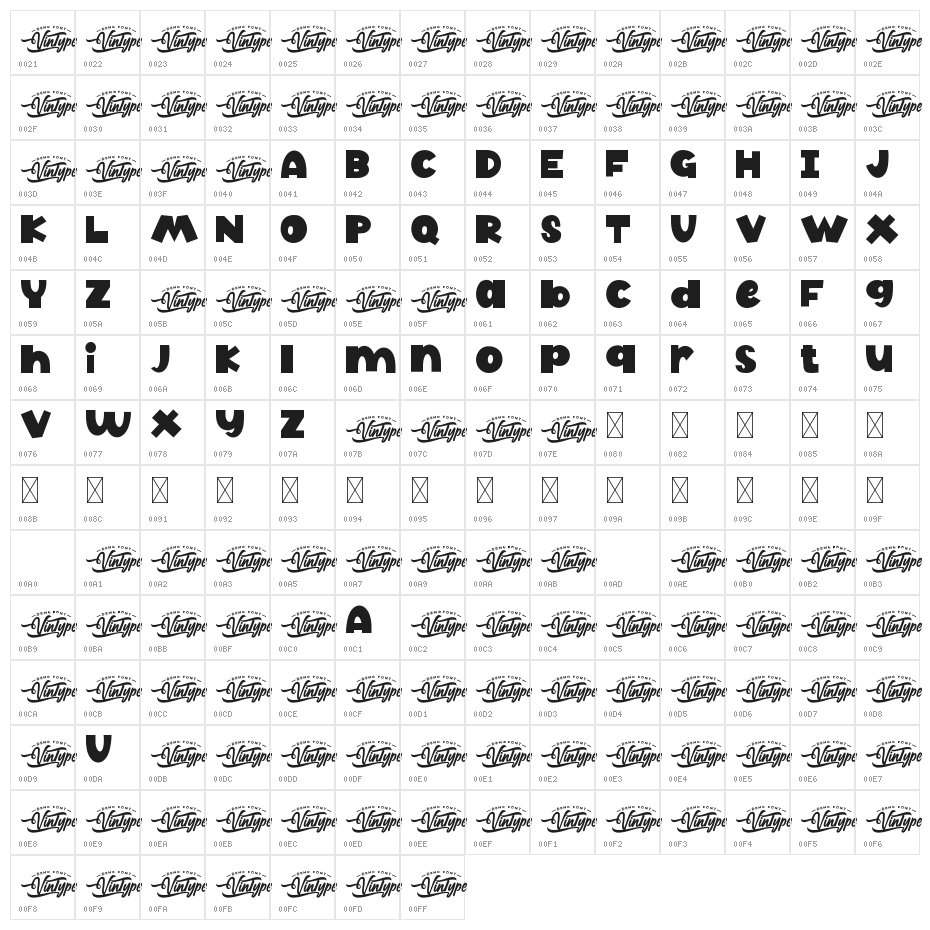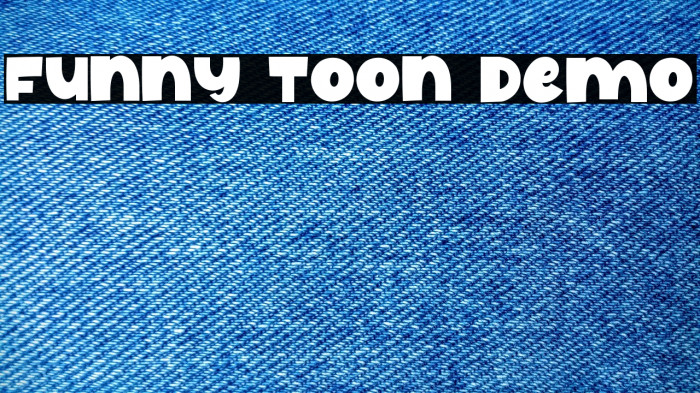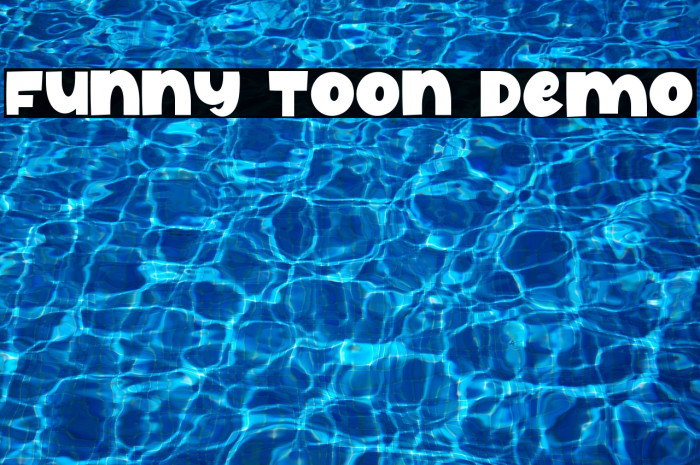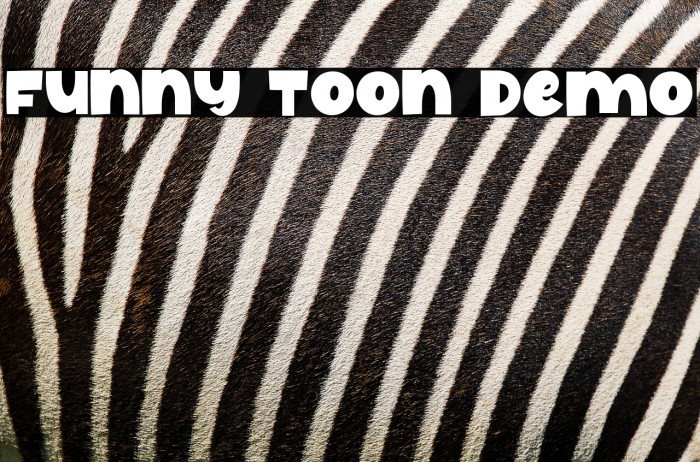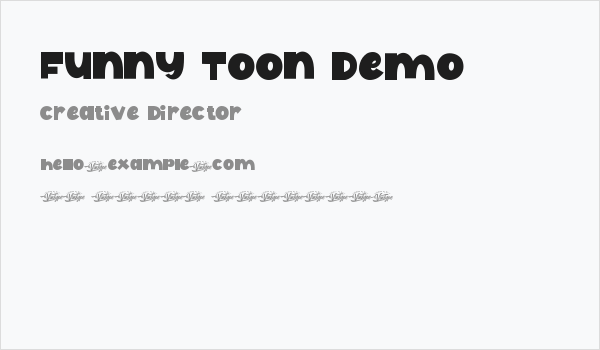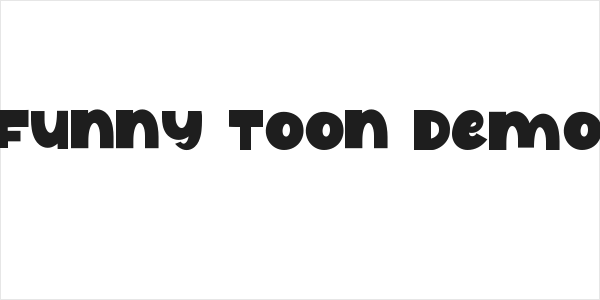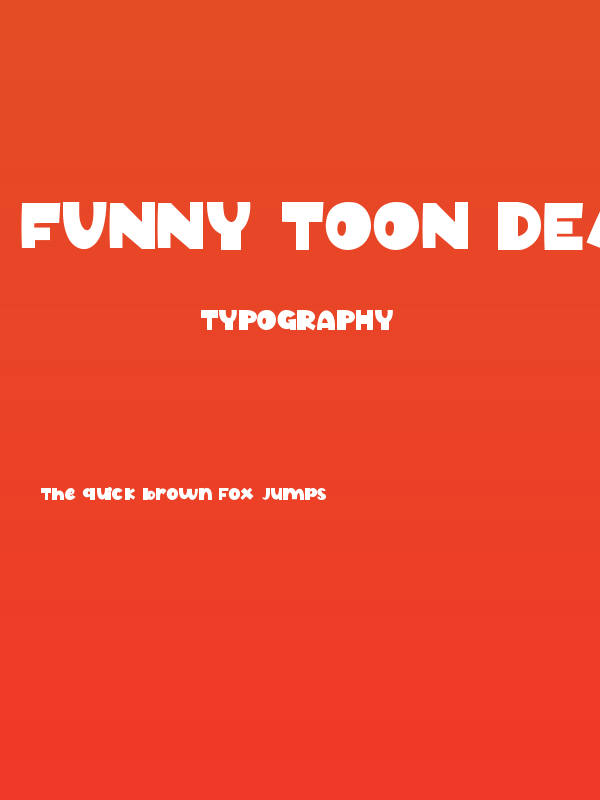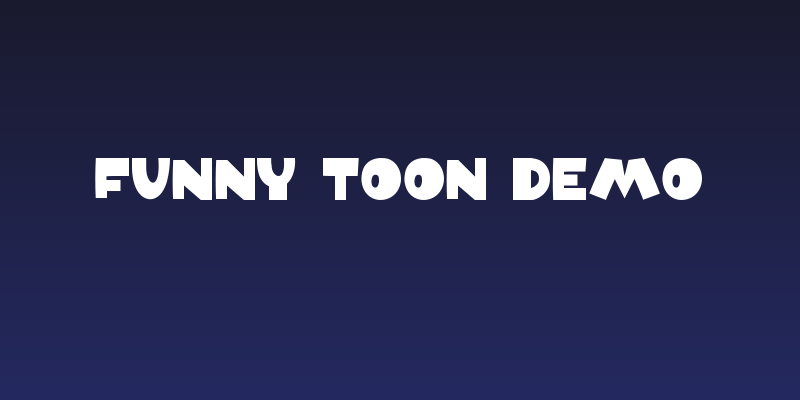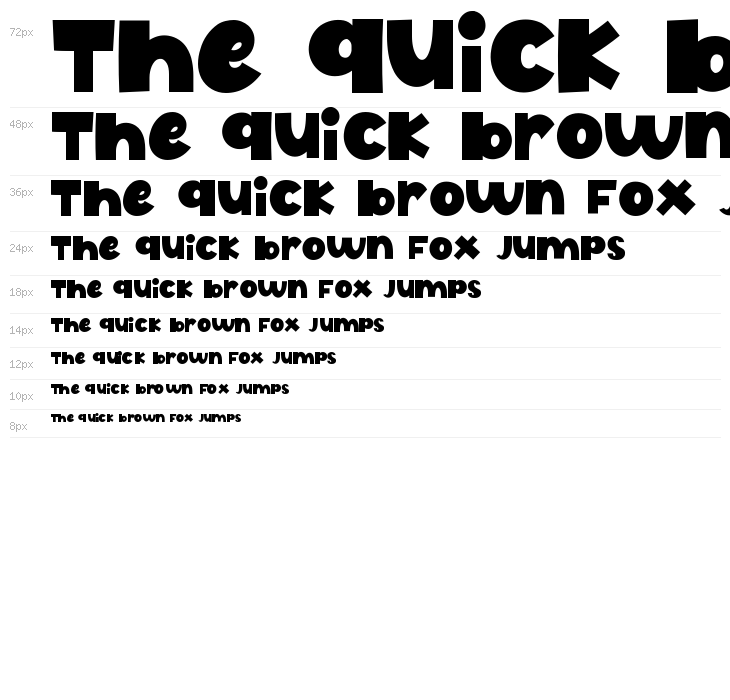
Funny Toon Demo Font
Funny Toon Demo Description
This playful and bold font features thick, rounded characters with a whimsical style. The uppercase letters are particularly striking, with exaggerated curves and a cartoonish flair that adds a sense of fun and energy. The lowercase letters maintain this playful aesthetic, ensuring consistency across the typeface. The numbers and special characters are equally bold and expressive, making them stand out in any design. This font is perfect for projects that require a lively and engaging look, such as children's books, comic strips, or playful branding materials.
| Overall Style | Playful, Cartoonish |
| Proposed Projects | Ideal for children's books, comic strips, playful branding, and fun posters. |